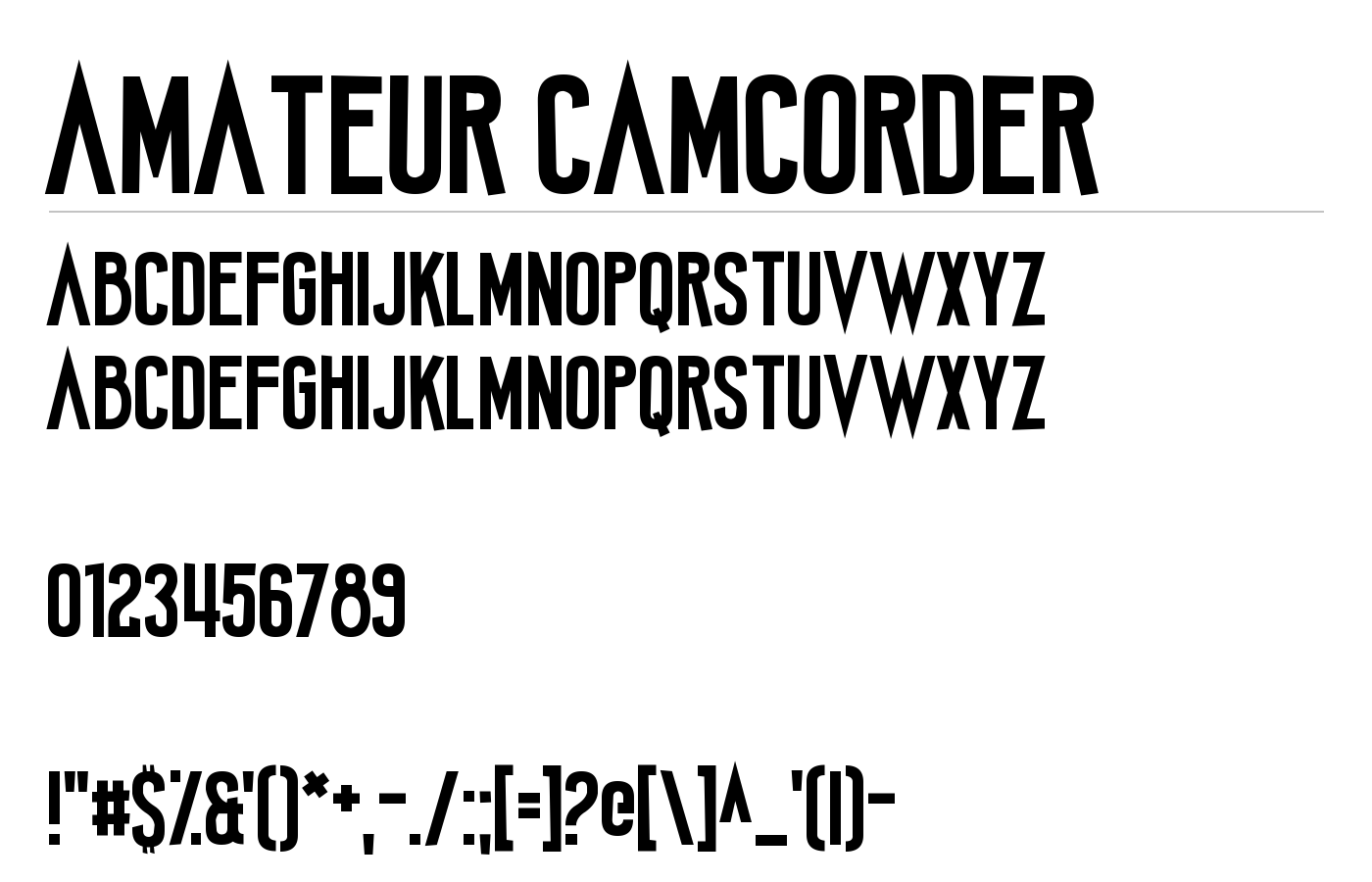
Amateur Camcorder is a bold, condensed sans serif font with a distinctive, vintage-inspired style that evokes the look of retro video equipment displays. Its tall, narrow letters feature sharp angles and slight irregularities, giving the font an edgy, dynamic feel that pairs well with creative, nostalgic, or tech-themed designs. This font works best in logos, posters, and headlines where its strong personality can stand out and capture attention.
Amateur Camcorder Font
About Amateur Camcorder Font
| Font family | Amateur Camcorder Font |
| Designer | AM |
| Trademark | Amateur Camcorder by Chequered Ink. |